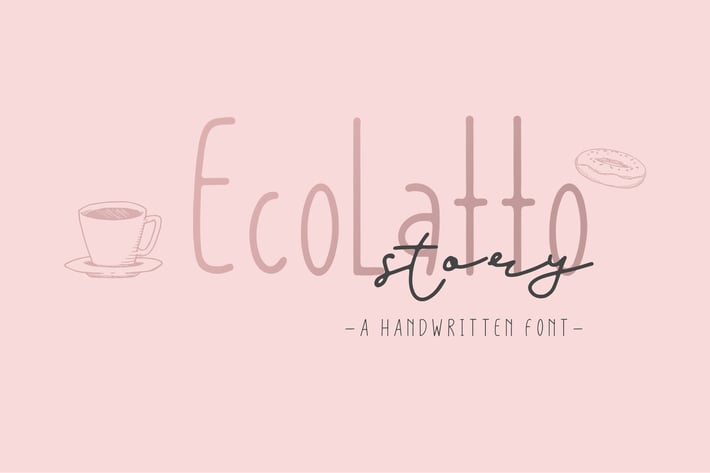
Ecolatto Story - Handwritten Font Duo
TMint
Ecolatto Story - Handwritten Font Duo is a rough brush script font with a clear style and dramatic movement. This font is great for your next creative project. Fanastiko is perfect for any project design like logo, wedding designs, social media posts, advertisements, product packaging, product designs, label, photography, watermark, invitation, stationery or etc